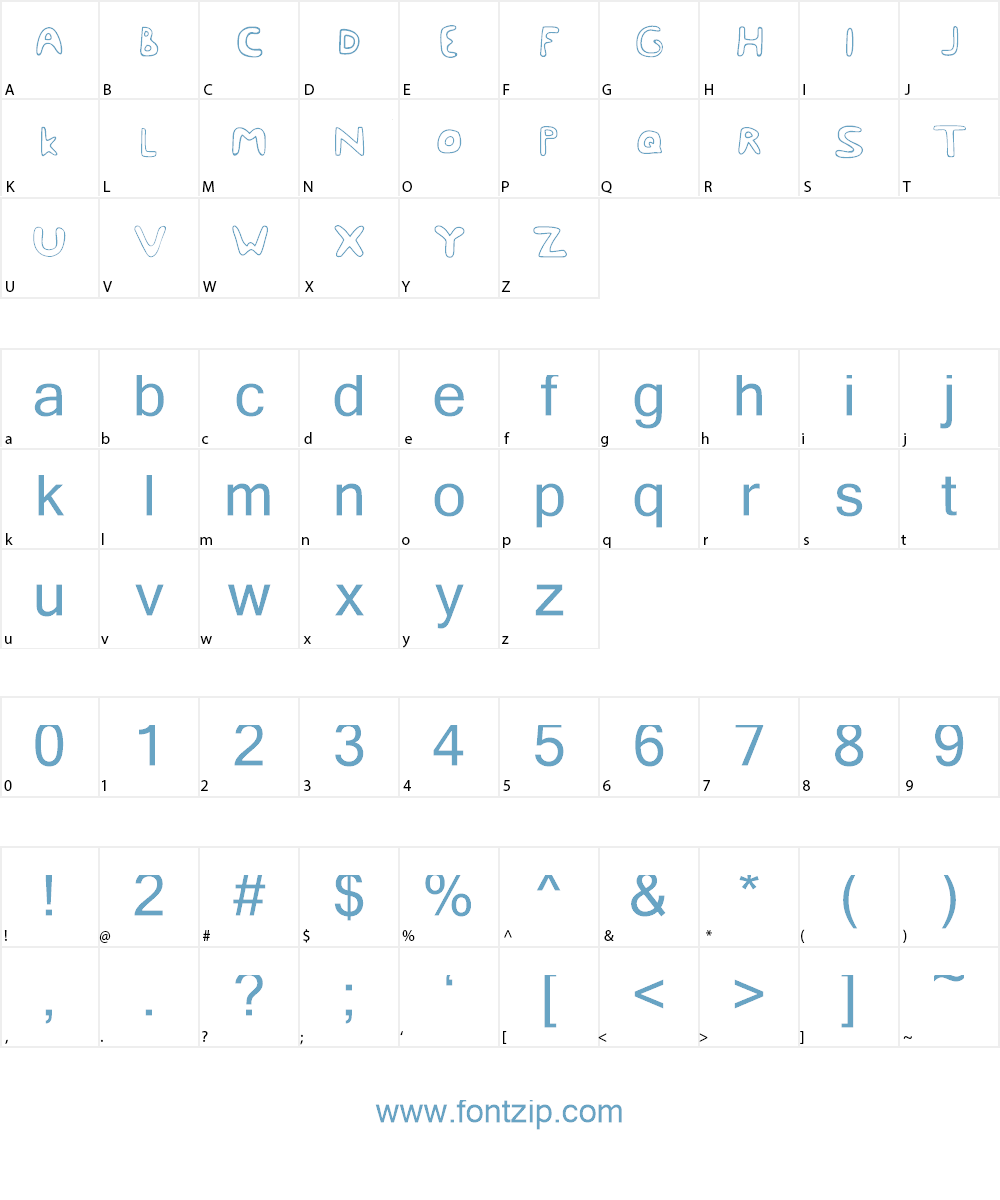
Mc Cool plays hard! Layered with stripes and outlines, this family can be combined to make a crazy collection of designs. Mc Cool is inspired by our doodles we did in school while day-dreaming. McCool deliveries nostalgia, playfulness and a child like creativity. The full version has 7 different styles, Mc Cool can be utilized in lots of different ways and produce some beautiful designs! A nifty font that is great fun to play with, how cool is that?